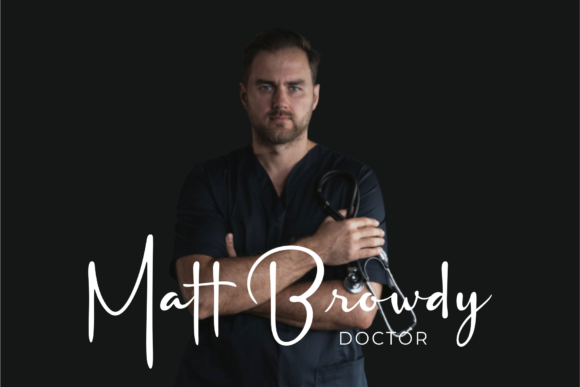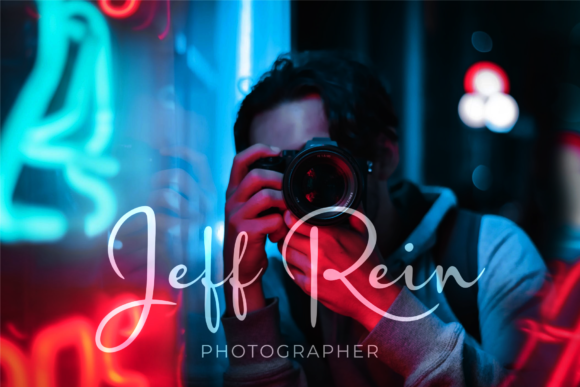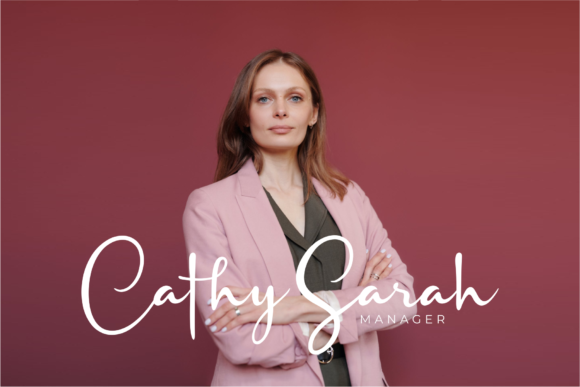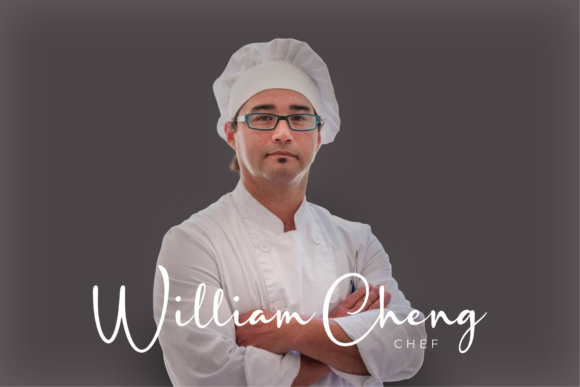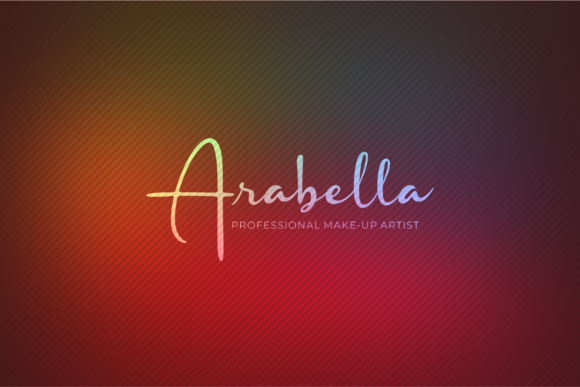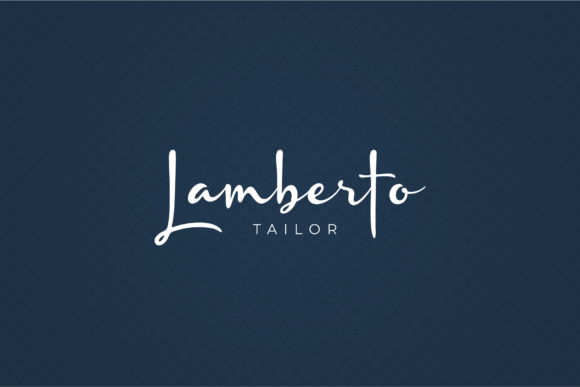
Introduction to Heartway Font
Do you remember that moment when you stumbled upon the perfect font, and your creative project suddenly felt like it had a heartbeat? For designers, finding the right font can be the difference between a good design and a great one. That’s why we’re excited to introduce you to the Heartway Font, a lovely and timeless handwritten font that’s sure to capture the attention of anyone who lays eyes on it.
With its unique and beautiful touch, the Heartway Font is the perfect choice for creating eye-catching logos, branding, and quotes. Whether you’re working on a creative project or simply looking for a high-quality design resource, this font is sure to impress. And with its PUA encoded feature, you can access all of the glyphs and swashes with ease, giving you endless possibilities for customization.
Key Features of Heartway Font
- Unique, handcrafted design that sets it apart from other fonts in its class.
Honest Review: Heartway Font
I recently stumbled upon the Heartway Font and decided to give it a try. Overall, I’m impressed with this design resource, which is perfect for any creative project that requires a modern touch. The font comes in a high quality format, ideal for use in logos, branding materials, and even digital displays.
Here are some of the things that work well with the Heartway Font:
- ✨ Modern and sleek design
However, I did encounter a few limitations with the Heartway Font:
- ⚠️ Limited font styles and variations
- ⚠️ Not suitable for complex typography projects
Overall, I think the Heartway Font is a great addition to any designer’s toolkit. While it may not be perfect, its strengths far outweigh its weaknesses, making it a solid choice for a wide range of creative projects.
Tips for Getting the Most Out of Heartway Font
To get the most out of the Heartway Font, use it in conjunction with a transparent background to create stunning visual effects. You can also experiment with different font sizes and colors to add depth and interest to your designs.
Common Use Cases for Heartway Font
The Heartway Font is perfect for use in a variety of creative projects, including logos, graphics, presentations, and documents. Its high-quality design and elegant appearance make it a popular choice among designers and non-designers alike.